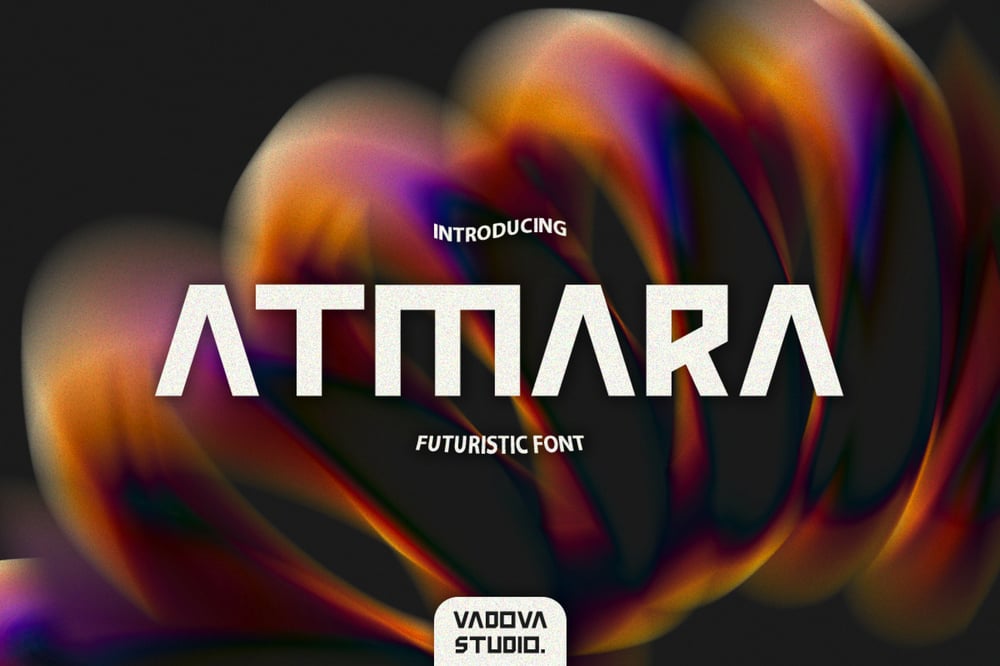
Atmara Font Family was designed by published by Vadova Std. Atmara contains 1 styles and family package options. Atmara is a bold futuristic display font with sharp geometric edges and a sleek, modern aesthetic, making it perfect for sci-fi posters, gaming titles, technology branding, and cyberpunk-themed designs. Its angular letterforms and futuristic appeal enhance digital interfaces, esports logos, space-related graphics, and cutting-edge product packaging. With its strong presence and innovative style, Atmara brings a high-tech, forward-thinking energy to any project.